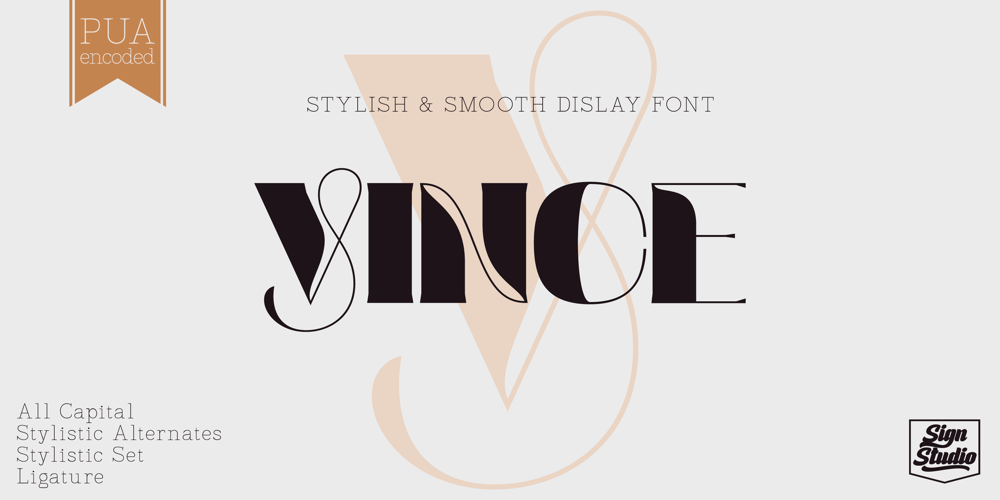
Vince Font Family was designed by Sugi Yanto and published by Sign Studio. Vince contains 1 styles and family package options. Vince was created to be a display font. Each side of the character is carefully crafted so that this font has a premium quality.The curve that has an extrema point will be kept geometric and smooth. Ligatures and Stylistic Alternate work well to provide design variations. Versatile for building branding, invitations, logotypes, magazine headings and posters.Supporting font in preview : Hexi